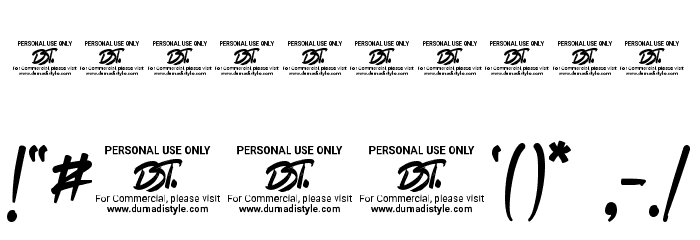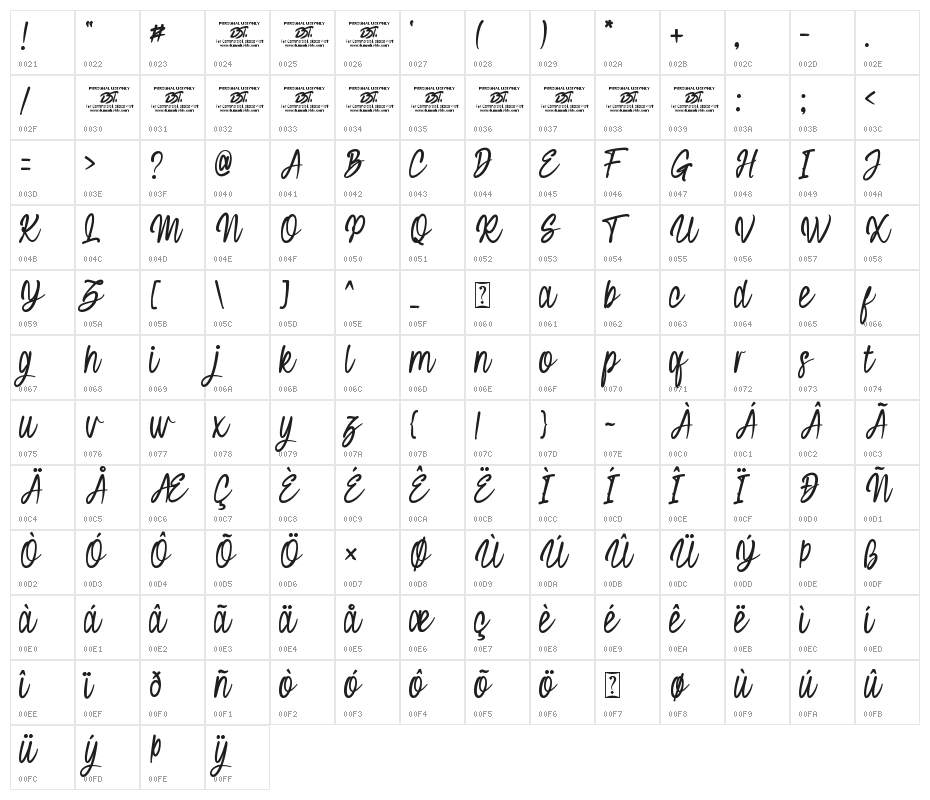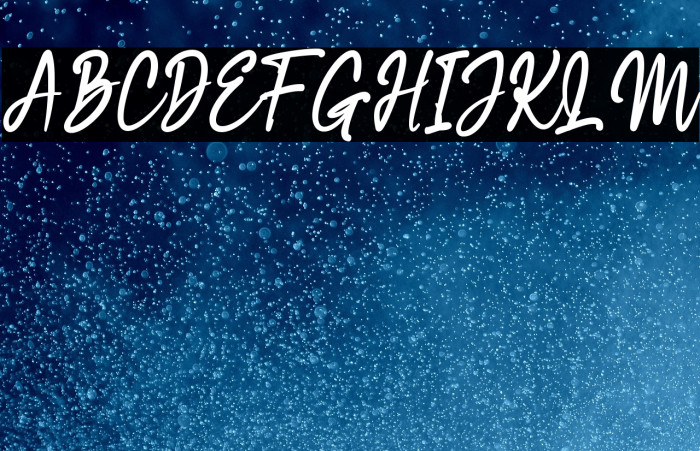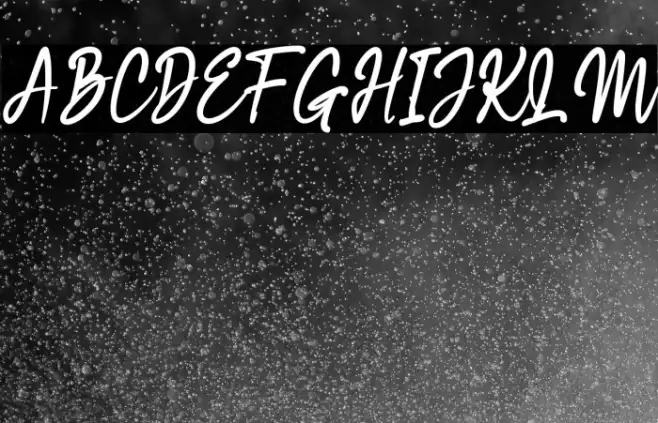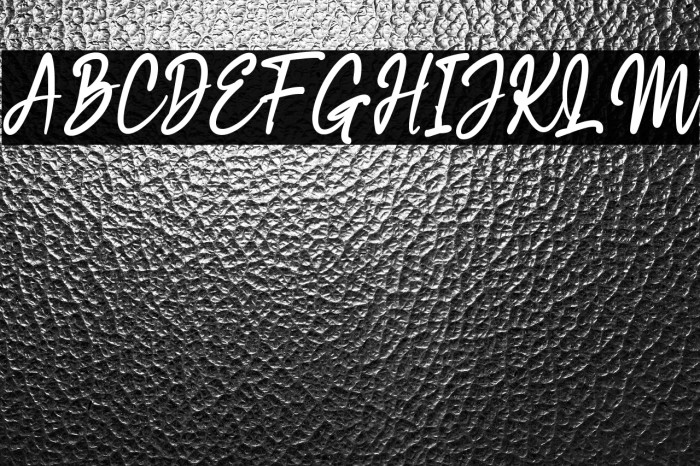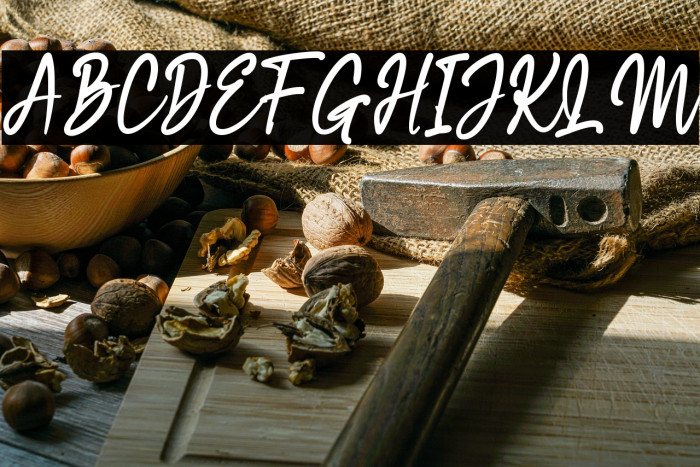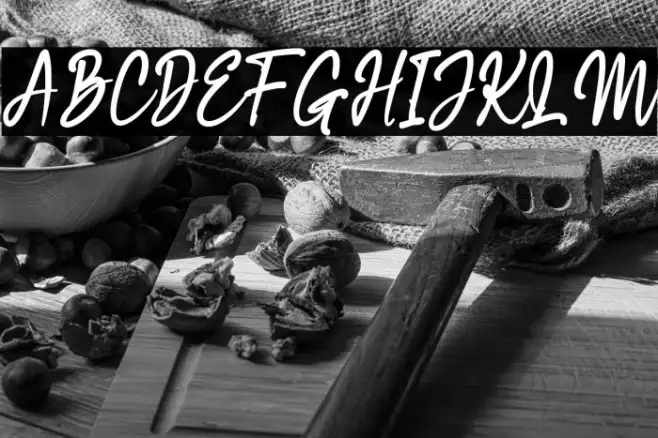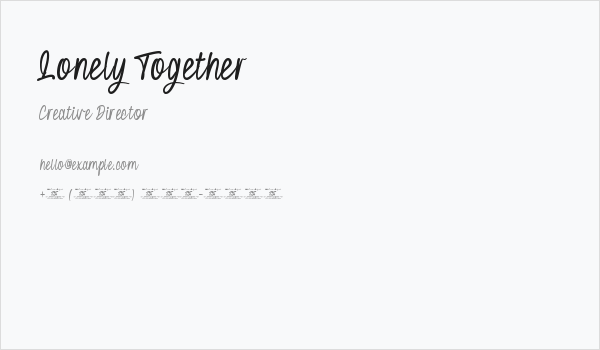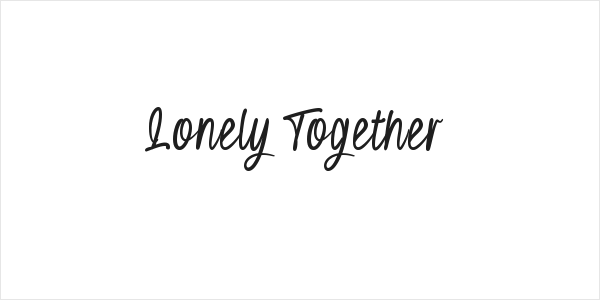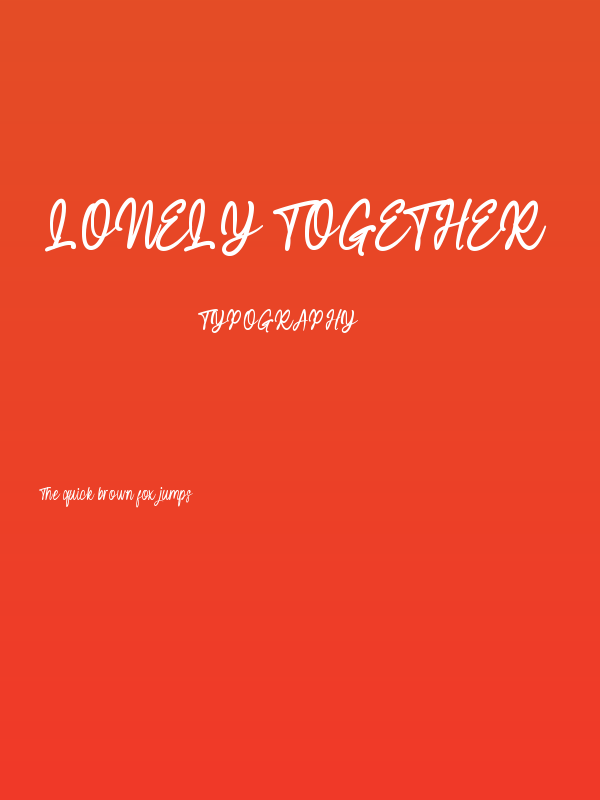
Lonely Together Font
Lonely Together Description
This font features a flowing, cursive style with a modern touch. The letters are interconnected, giving a sense of continuity and elegance. The uppercase letters are bold and prominent, while the lowercase letters maintain a consistent flow with slightly varying heights. The strokes are smooth and rounded, creating a sense of fluidity. The special characters are designed to match the overall aesthetic, with a playful yet sophisticated appearance. This font is ideal for projects that require a personal, handwritten feel, while still maintaining a professional look.